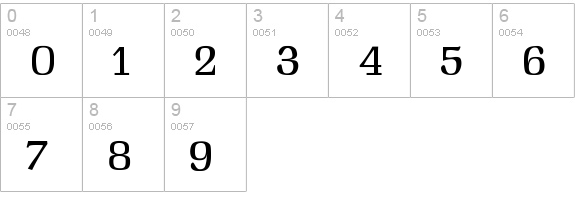
Antikva font embodies timeless elegance and sophistication, blending classic serif elements with a modern twist. Its graceful curves and delicate lines exude a sense of refinement, making it a versatile choice for various design projects. With its balanced proportions and clear legibility, Antikva font is ideal for both print and digital applications. What sets Antikva font apart is not only its aesthetic appeal but also its accessibility. This exquisite typeface is available for free download at FontsMarket.com, allowing designers and enthusiasts alike to easily incorporate its beauty into their creative endeavors. Discover the allure of Antikva font and elevate your designs with its timeless charm and versatility.